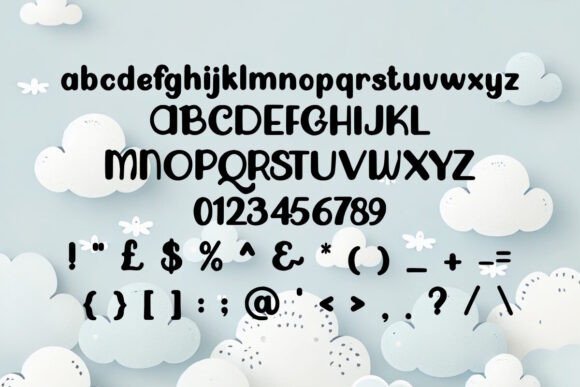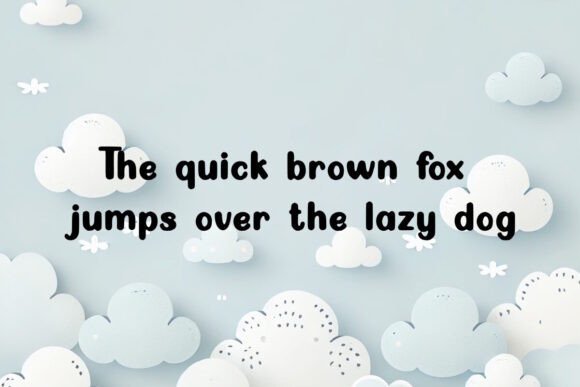
Have you ever stared at a blank page, itching to create something that captures the essence of childhood wonder? You know, that feeling of pure joy and excitement that comes with making something new and magical? For designers, this moment is a familiar one, and it’s exactly what inspired the creation of the Fluff and Nonsense Font.
This playful, rounded font is more than just a typeface – it’s a key to unlocking a world of creativity and imagination. With its smooth, bubbly letters, the Fluff and Nonsense Font brings a sense of fun and nostalgia to any project, making it the perfect addition to designs that need a cheerful and lighthearted vibe.
Key Features of Fluff and Nonsense Font
- Unique Characteristics: The Fluff and Nonsense Font is known for its playful, whimsical design, with irregular shapes and flourishes that add a touch of personality to any text.
Fluff and Nonsense Font Review
I recently had the chance to work with the “Fluff and Nonsense Font”, and I must say it’s been an interesting experience. ✨ One thing that stands out is its unique aesthetic, which is perfect for projects that require a touch of whimsy. The font’s playful, hand-drawn feel adds a lot of character to text, making it suitable for children’s books, greeting cards, and other creative applications.
Another advantage of this font is its flexibility. ✨ It comes in a range of weights and styles, making it easy to adapt to different design contexts. From light and airy to bold and playful, the font offers a lot of options for customization.
- ⚠️ Limited legibility: At smaller font sizes, the font’s intricate details can become difficult to read, making it less suitable for body text.
- ⚠️ Limited compatibility: The font may not be compatible with older systems or software, which could lead to compatibility issues.
Overall, I think the “Fluff and Nonsense Font” is a great choice for projects that require a touch of personality. While it may have some limitations, its unique aesthetic and flexibility make it a valuable addition to any designer’s toolkit.
Practical Application Guide for Fluff and Nonsense Font
Use the Fluff and Nonsense Font to add a touch of whimsy and fun to your designs. Common use cases include:
1. Greeting cards and party invitations
2. Social media graphics and ads
3. Logos and branding materials
4. Children’s books and educational materials
5. Playful and creative presentations
Alternatives to Fluff and Nonsense Font
Great Vibes Font is a modern, cursive script font ideal for creating a friendly and approachable atmosphere. It’s suitable for use in headings, titles, and short paragraphs where a touch of personality is needed. Great Vibes Font is more refined and elegant compared to Fluff and Nonsense Font, which is more playful and whimsical.
Lobster Font is a fun, casual script font perfect for adding a relaxed and laid-back feel to your design. It’s ideal for use in headings, titles, and short paragraphs where a sense of informality is desired. Lobster Font is more casual and relaxed compared to Fluff and Nonsense Font, which has a more playful and quirky feel.